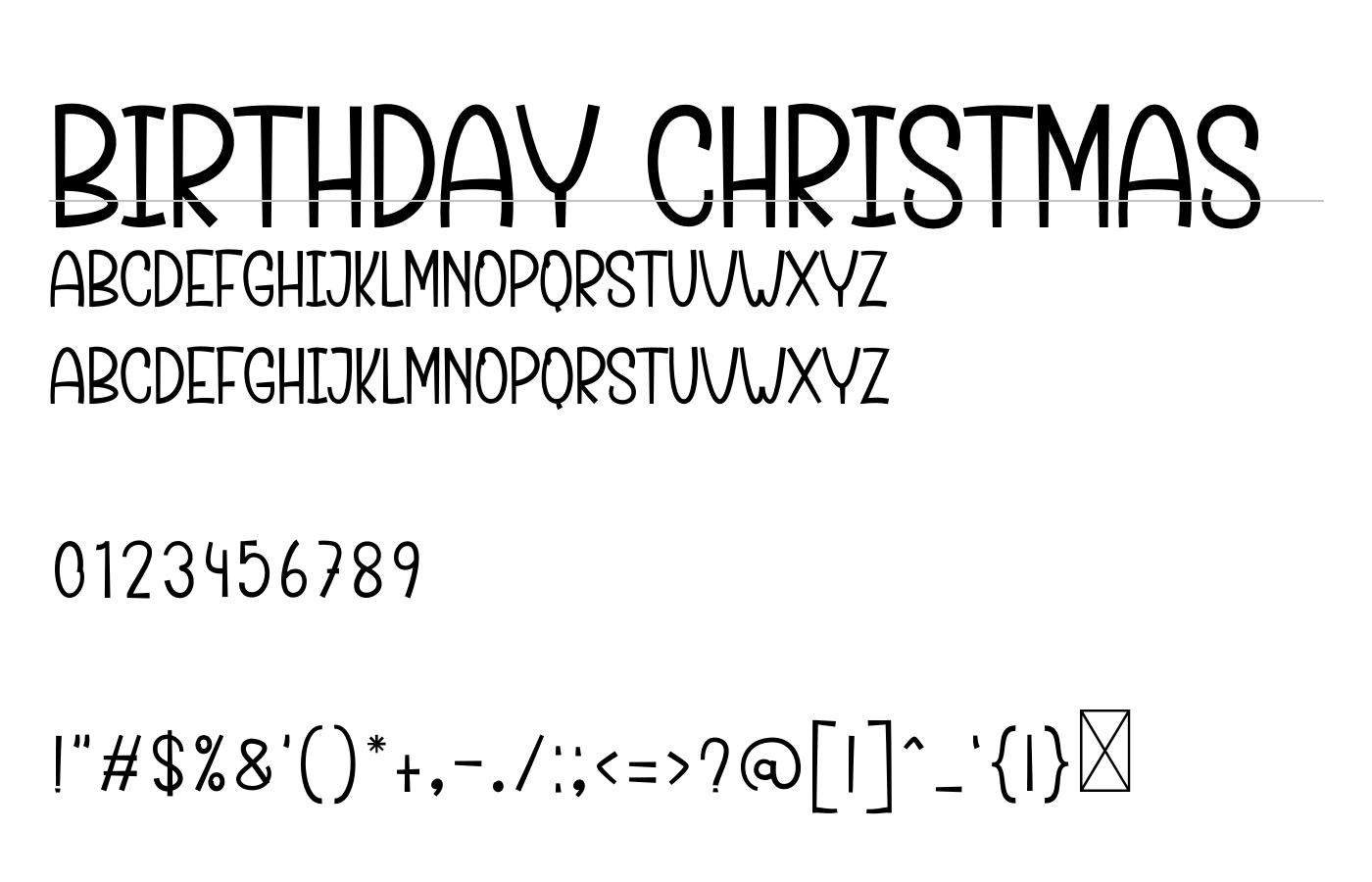
Birthday Christmas Font is a playful and whimsical sans serif typeface with a hand-drawn feel, featuring tall, narrow letterforms and consistent stroke weight for a clean but lively appearance. Its quirky character shapes and uneven baseline make it ideal for festive, casual designs such as party invitations, kids' materials, and holiday-themed projects, where a fun and approachable mood is desired. This font's unique style captures a joyful spirit while remaining highly readable in both display and short text use.
Birthday Christmas Font